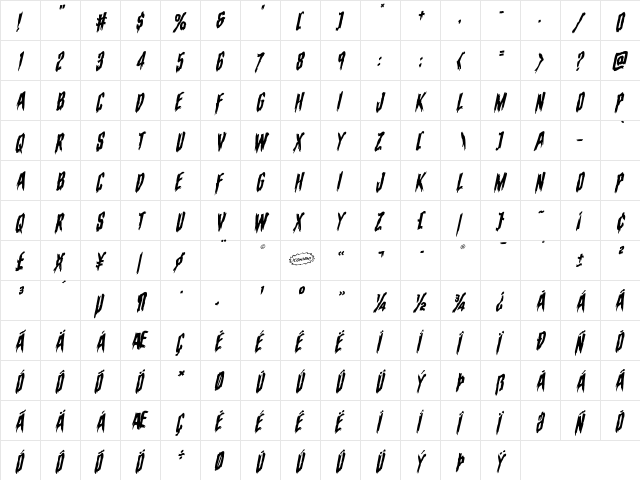
Eva Fangoria Warped Italic Italic
Design Context for Eva Fangoria Warped Italic Typeface
Eva Fangoria Warped Italic is a composed and adaptable typeface that performs quietly and consistently across a wide range of design contexts. The slanted form adds forward momentum and visual energy.